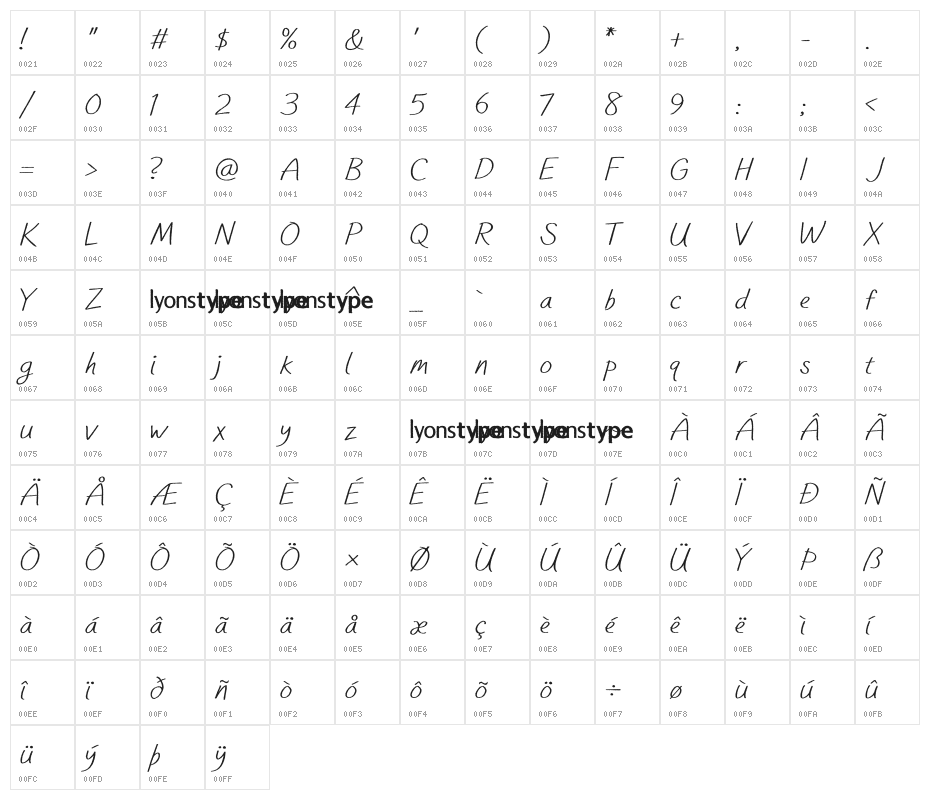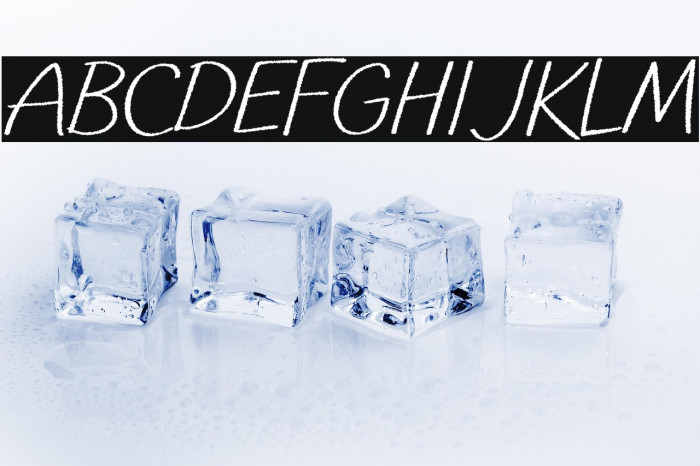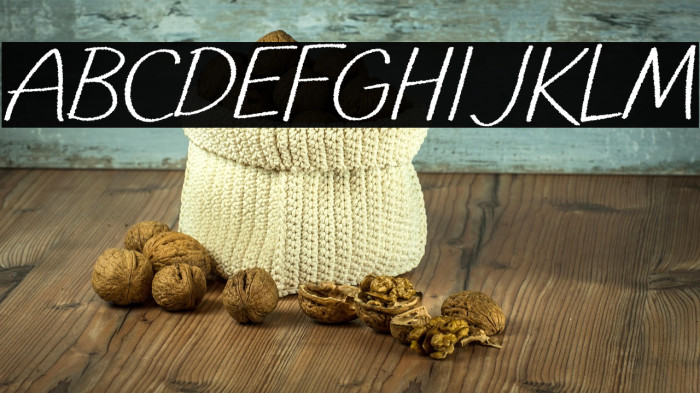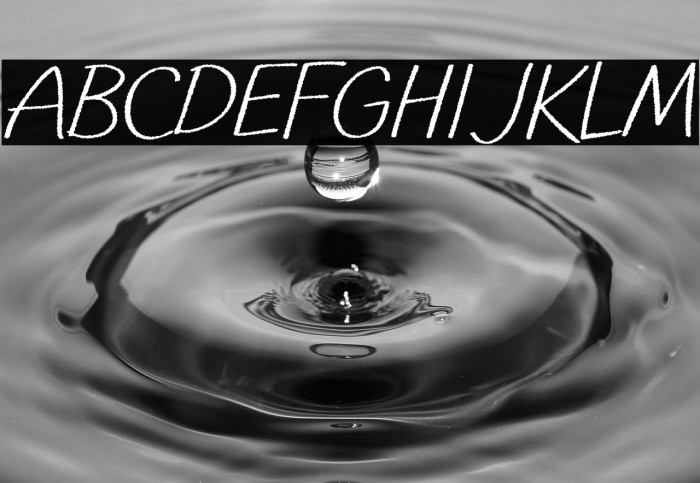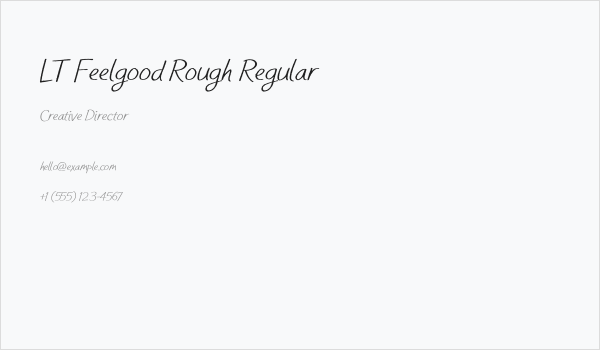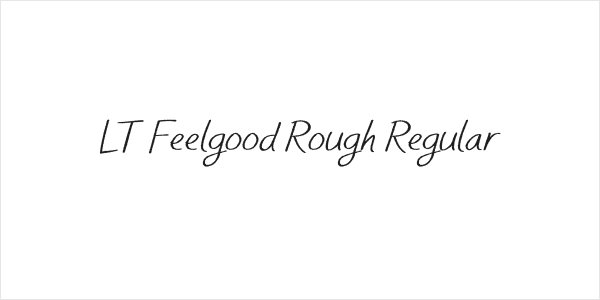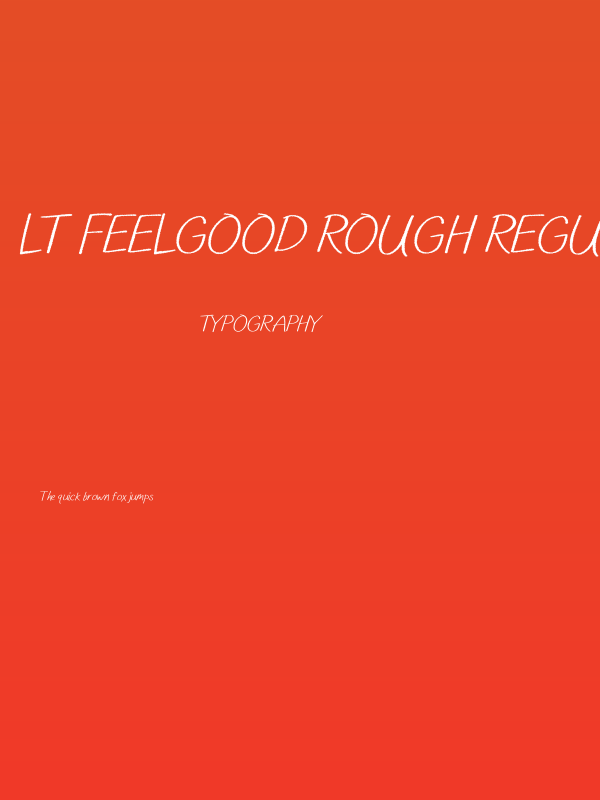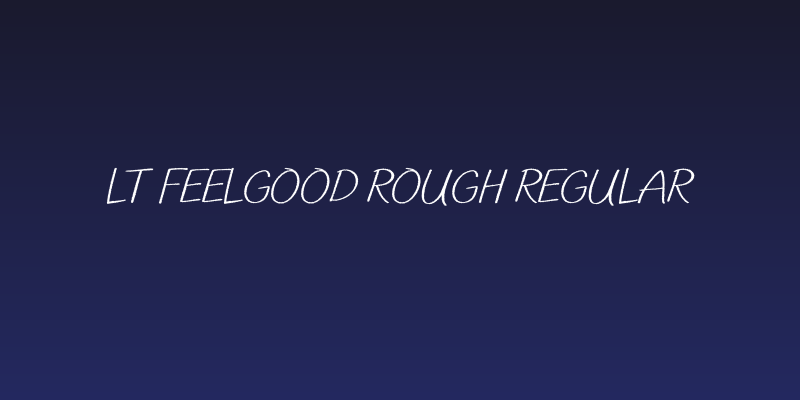
LT Feelgood Rough Regular Font
LT Feelgood Rough Regular Description
This font exhibits a casual, handwritten style with a slightly rough texture, giving it an authentic and personal feel. The letters are slanted, suggesting a sense of movement and fluidity. Uppercase and lowercase characters maintain a consistent style, with smooth curves and a natural flow. The numerals and special characters complement the alphabet with the same informal and approachable design. This font's rough edges add a touch of rustic charm, making it suitable for projects that require a personal or artistic touch.
| Overall Style | Casual, Artistic |
| Use Case | Logos, Invitations, Artistic projects |
| Proposed Projects | Ideal for greeting cards, personal branding, artistic projects, and informal invitations. |